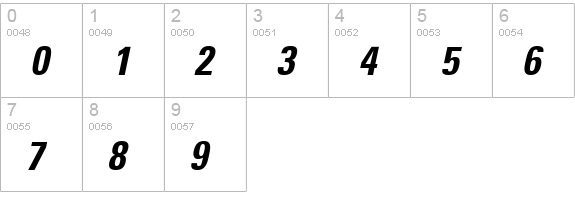
Nova Condensed SSi Bold Condensed Italic Font Details
Nova Condensed SSi Bold Condensed Italic is a strong, high-contrast, condensed-width, italic variant in the Nova typeface family \xE2\x80\x94 well suited to headlines, attention-grabbing titles, and strong calls-to-action.
Introducing Nova Condensed SSi Bold Condensed Italic font, a sleek and modern typeface that exudes sophistication and elegance. Its bold and condensed italic style makes it perfect for creating eye-catching headlines and titles that demand attention. The sleek design of this font adds a touch of class to any project, whether it be for print or digital use. What's even better is that Nova Condensed SSi Bold Condensed Italic font is available for free download at FontsMarket.com. Now you can elevate your designs with this stunning font without having to break the bank. Don't miss out on the opportunity to add this versatile and stylish typeface to your font collection today!